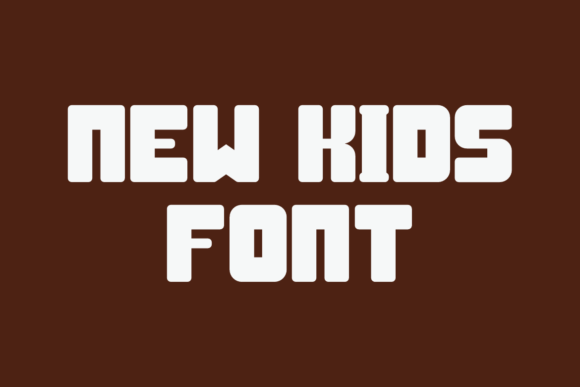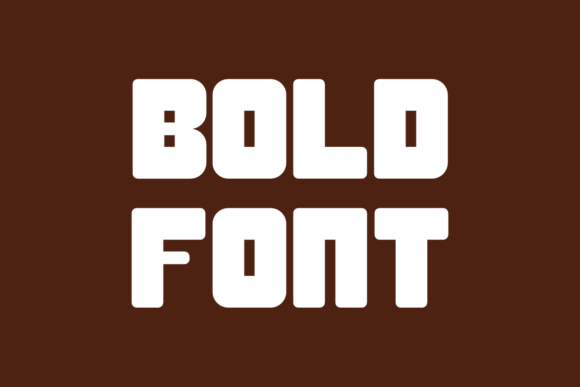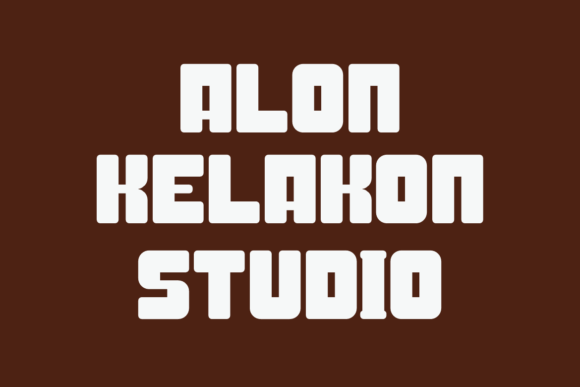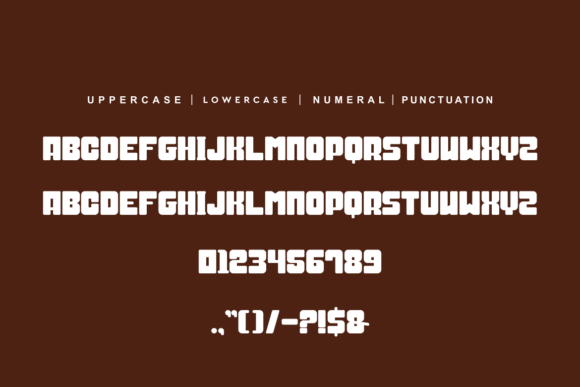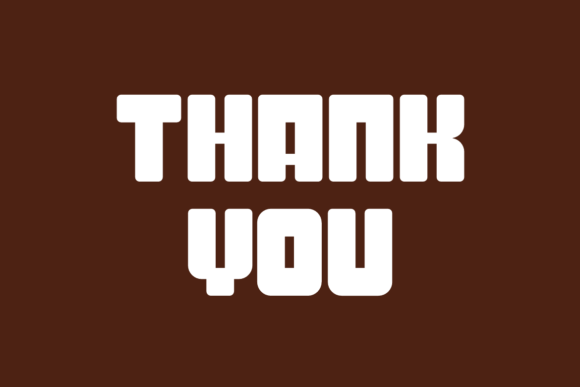
Introducing Groter Srezone: The Bold and Assertive Sans Serif Font
In the world of typography, a font can make or break a design. It’s the foundation upon which a visual creation is built, and the right choice can elevate a project from ordinary to extraordinary. For designers and crafters looking to add a bold and assertive touch to their work, Groter Srezone is an exceptional choice. This sans serif font is a game-changer, capable of transforming any creation with its unique character and versatility.
The Power of Groter Srezone
Groter Srezone is a bold and assertive sans serif font that demands attention. Its clean lines, geometric shapes, and confident presence make it an ideal choice for a wide range of design projects. Whether you’re working on a logo, branding materials, website, or print project, Groter Srezone is an incredible asset to your font library. Its bold personality ensures that your message is conveyed with clarity and impact, making it perfect for headlines, titles, and emphasis text.
Key Features of Groter Srezone
- Bold and Assertive: Groter Srezone exudes confidence and authority, making it perfect for designs that require a strong presence.
- Sans Serif: The clean and minimalist sans serif design ensures that your message is conveyed clearly, without any distractions.
- Versatile: Groter Srezone is suitable for a wide range of design projects, from digital to print, and can be used for various purposes, including logos, headings, and emphasis text.
- Geometric Shapes: The font’s geometric shapes give it a modern and edgy feel, making it perfect for designs that require a contemporary look.
Why Choose Groter Srezone?
With so many fonts available, why choose Groter Srezone? The answer lies in its unique combination of boldness, versatility, and aesthetic appeal. Here are a few reasons why Groter Srezone stands out:
- Uniqueness: Groter Srezone has a distinct personality that sets it apart from other fonts. Its bold and assertive nature ensures that your design stands out from the crowd.
- Legibility: The font’s clean design and geometric shapes ensure excellent legibility, even at small sizes.
- Customization: Groter Srezone can be easily customized to fit your design needs. Experiment with different colors, sizes, and styles to create a unique look.
Using Groter Srezone in Your Designs
Groter Srezone is an incredibly versatile font that can be used in various design projects. Here are a few ideas to get you started:
- Logos and Branding: Use Groter Srezone to create a bold and memorable logo that makes a lasting impression.
- Headings and Titles: Add emphasis to your headings and titles with Groter Srezone’s bold and assertive presence.
- Web Design: Use Groter Srezone to create visually appealing website headers, buttons, and emphasis text.
- Print Design: Groter Srezone is perfect for print projects, such as posters, flyers, and brochures, where a bold and attention-grabbing font is required.
Groter Srezone is a bold and assertive sans serif font that can elevate any design project. Its unique combination of geometric shapes, clean lines, and confident presence makes it an exceptional choice for designers and crafters. With its versatility, legibility, and aesthetic appeal, Groter Srezone is an incredible asset to your font library. Whether you’re working on a logo, website, or print project, Groter Srezone is sure to make a lasting impression.